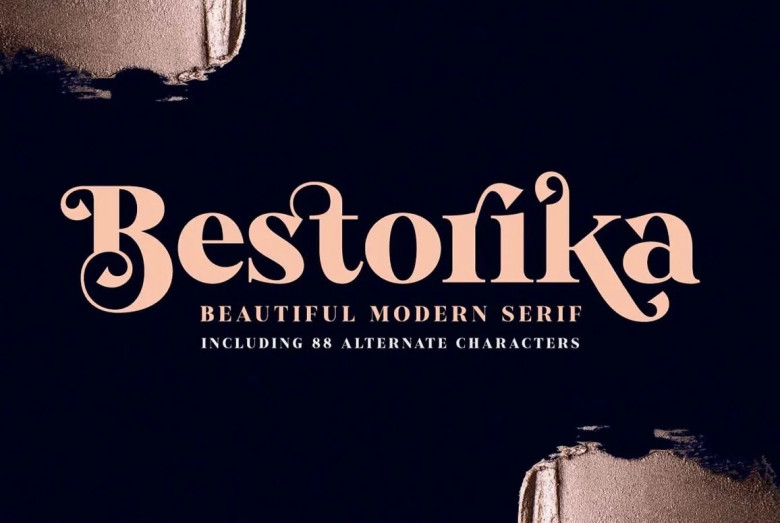
Bestorika Font
Meet Bestorika, a modern serif with smooth, varied lines and balanced curves. The font could be seen as conservative and traditional while also being vibrant and contemporary. It has lots of chic style alternates to provide you many practical variations for use. The composition of curves, alternates and original letters is very flexible.
Like my other typefaces, my influences come from the hand lettering-work of the golden past. Nevertheless it shows itself to be very modern in natural light. And with the many stylistic alternates it is very easy to change things around—or in other words just make changes! This work is now applicable to magazine headlines, book titles and anything else where the general ambiance needs to be rather chic.
And with its versions in the handling of water colors, its versatility becomes completely evident, it can satisfy any design requirement. It’s worth using in beauty or travel blogs. Just take a gander at how many possibilities await you in combination with the stylish Bestorika.